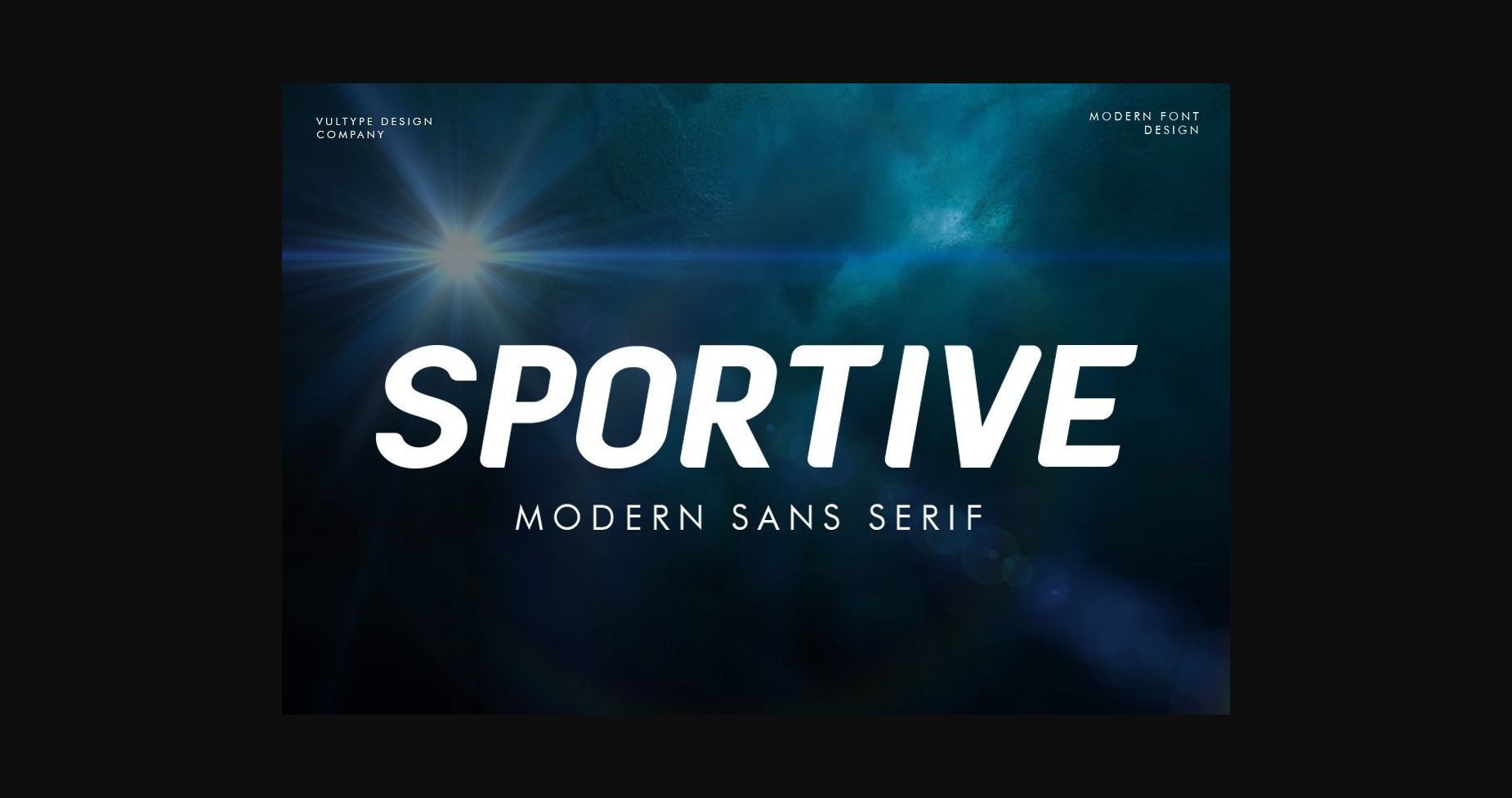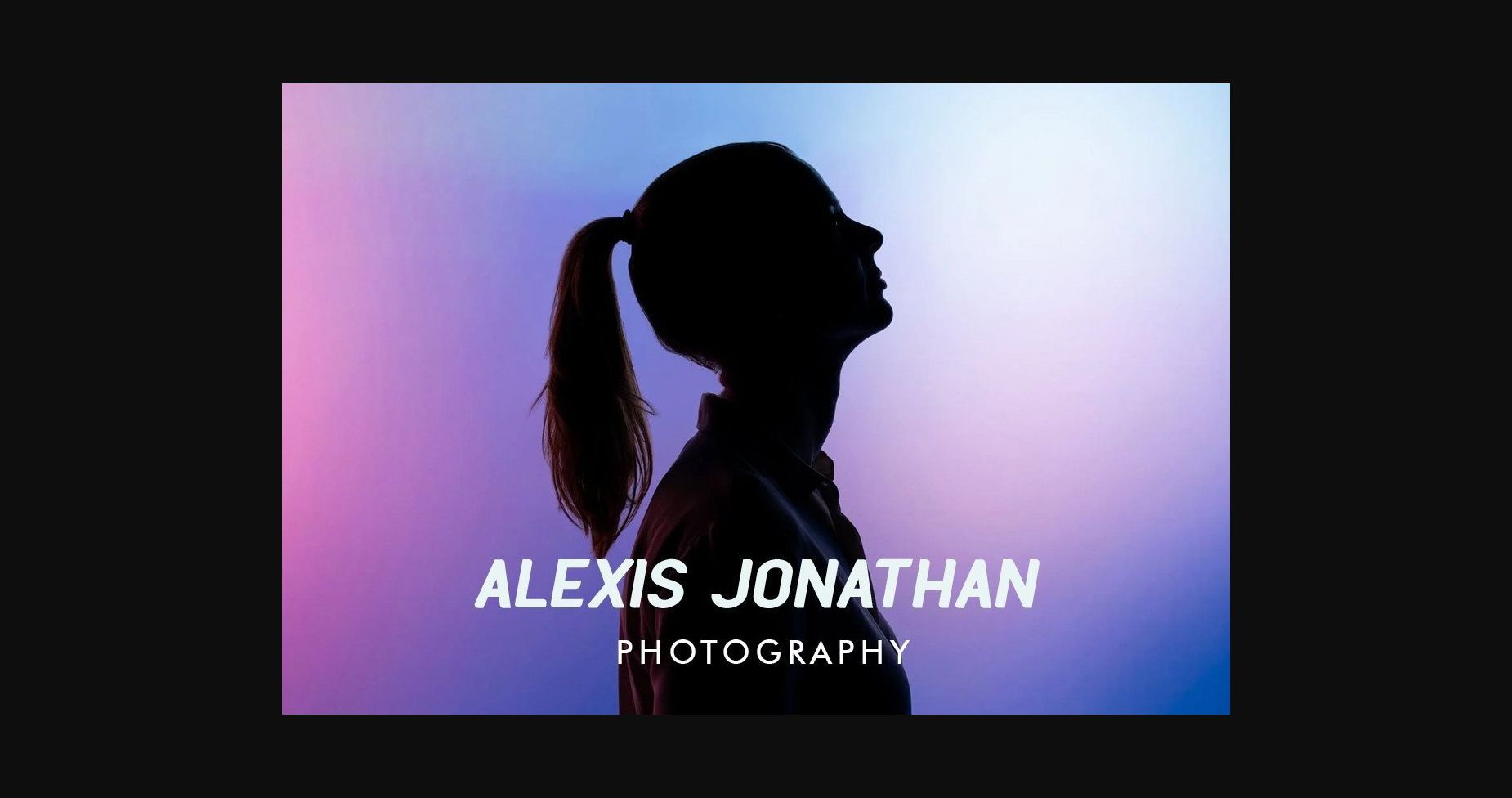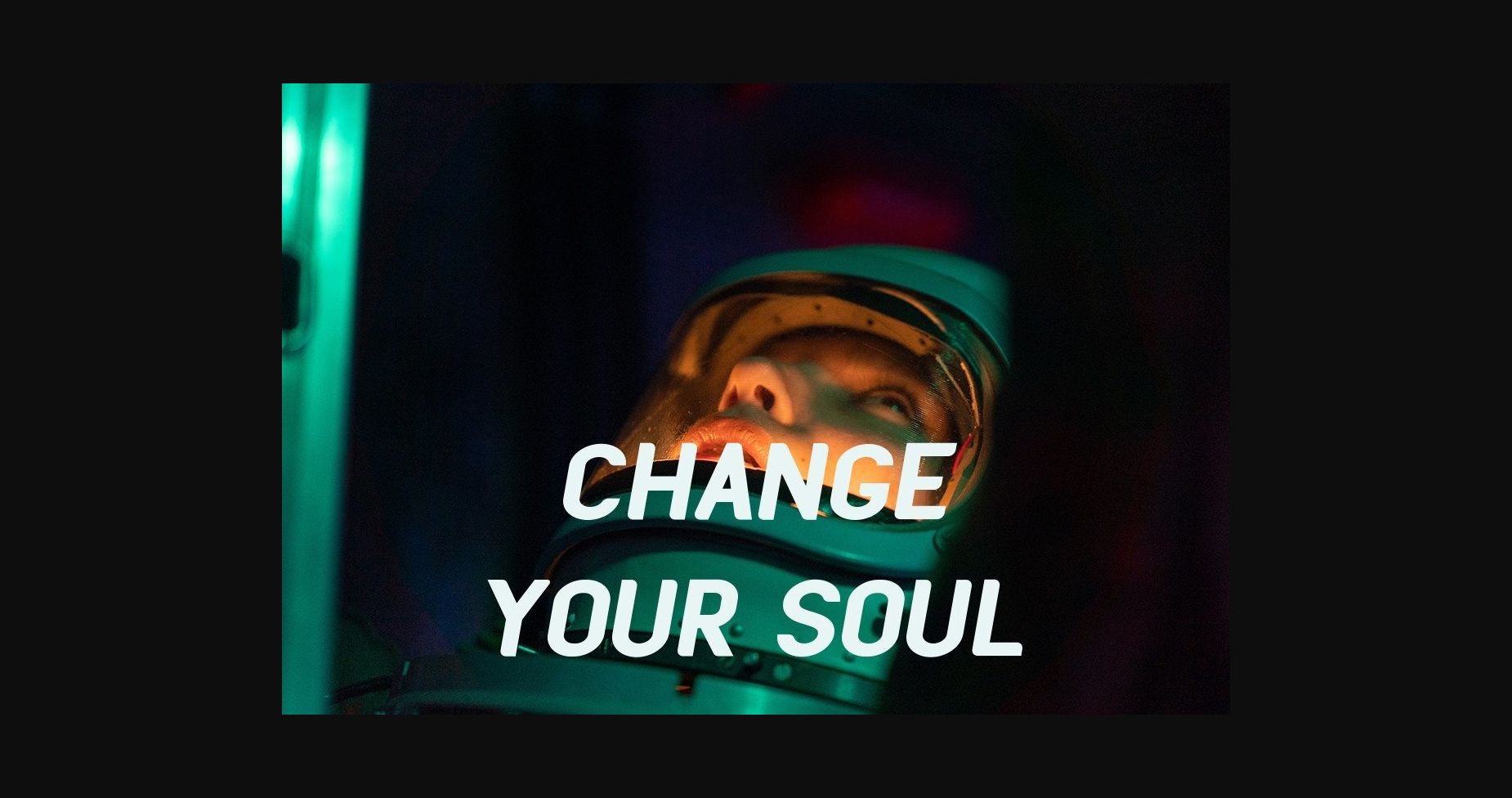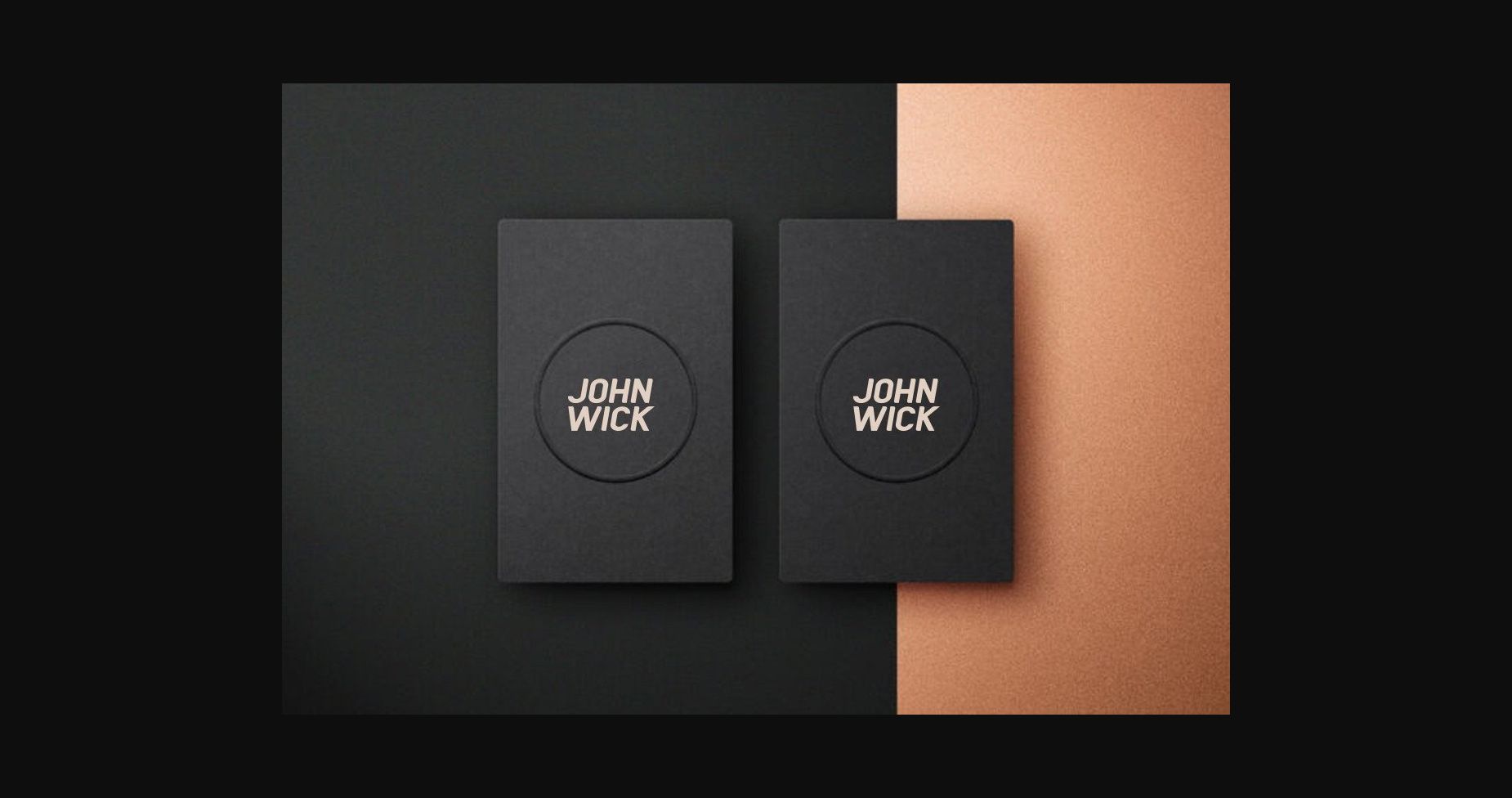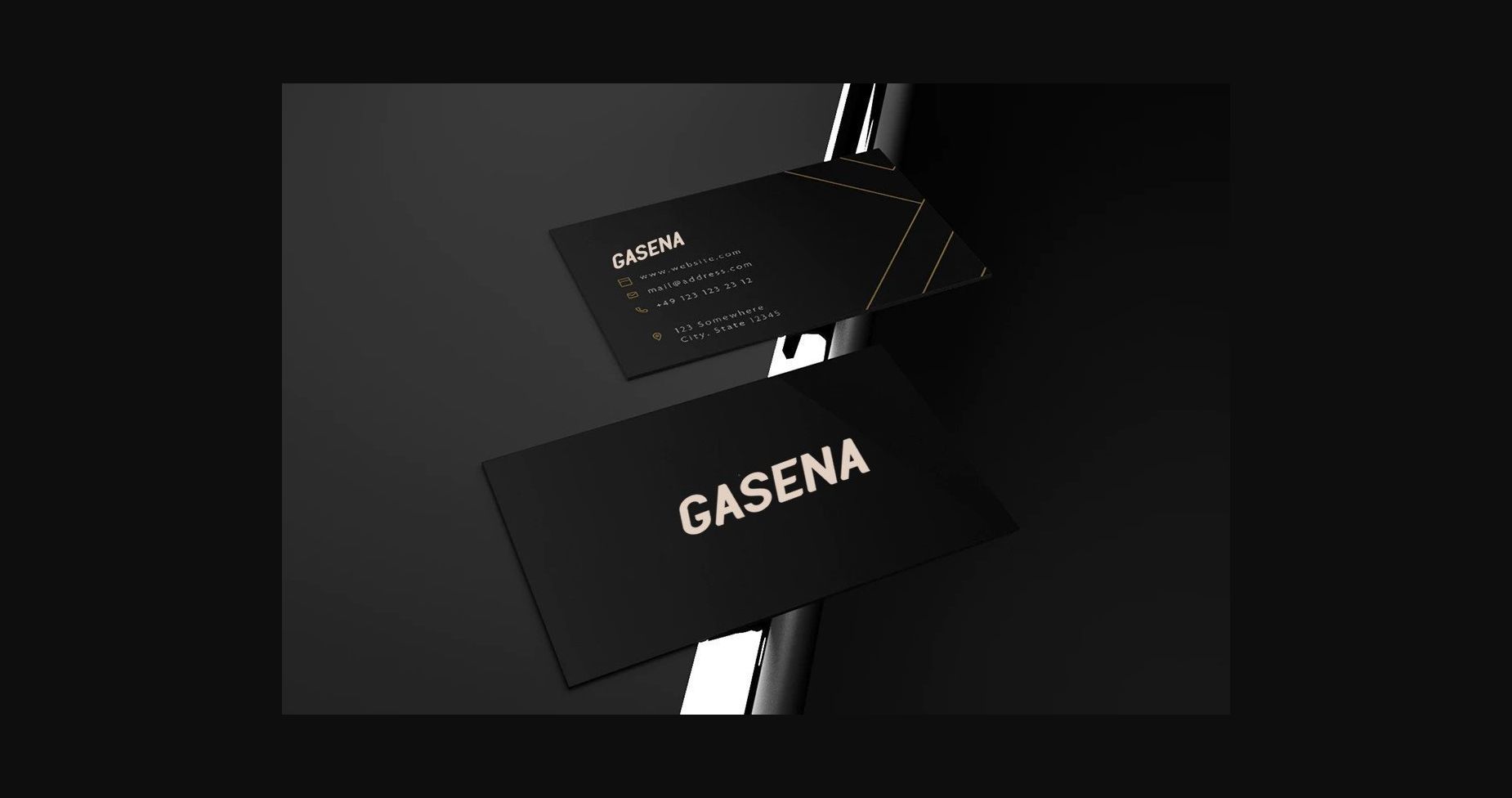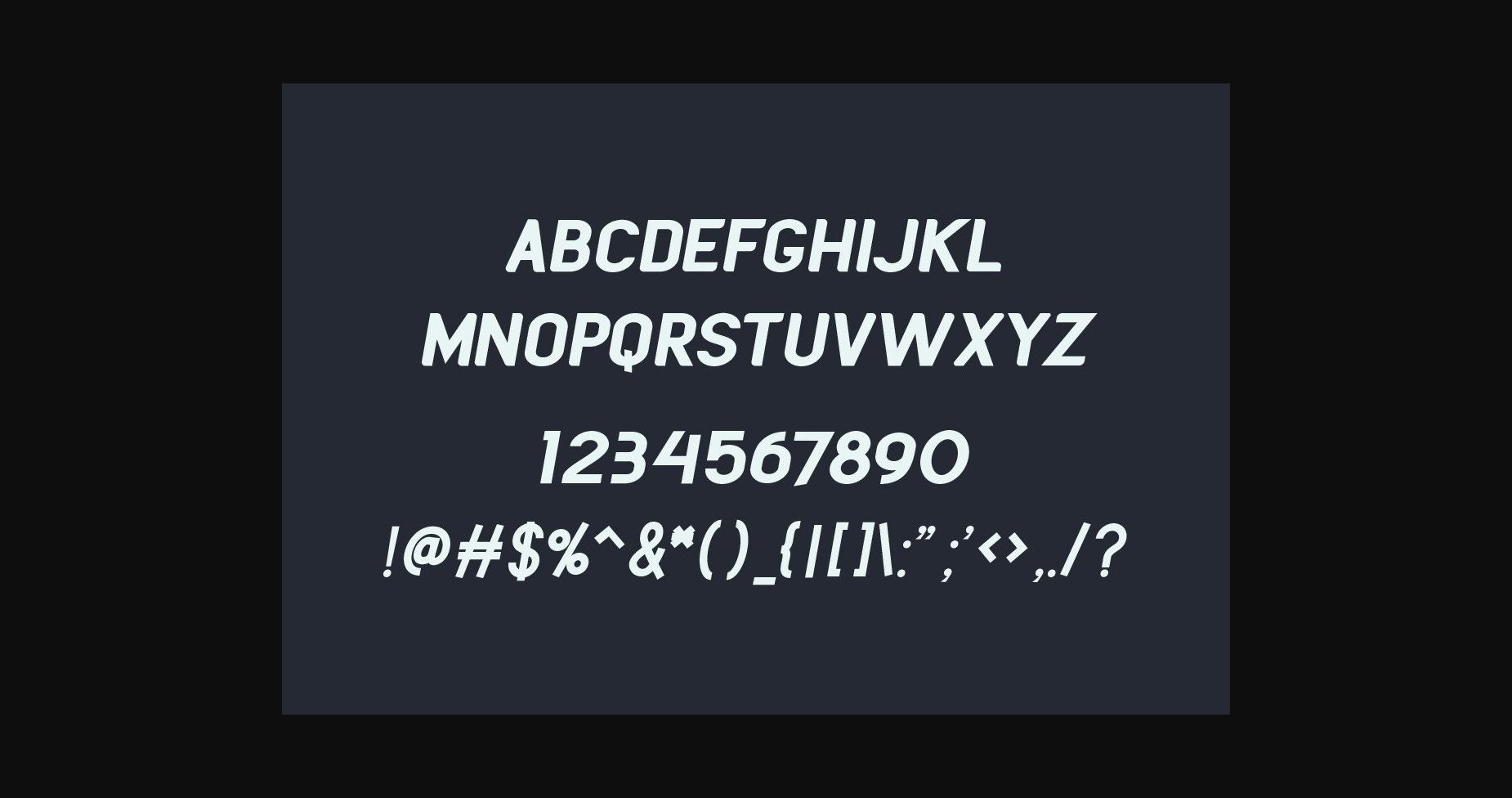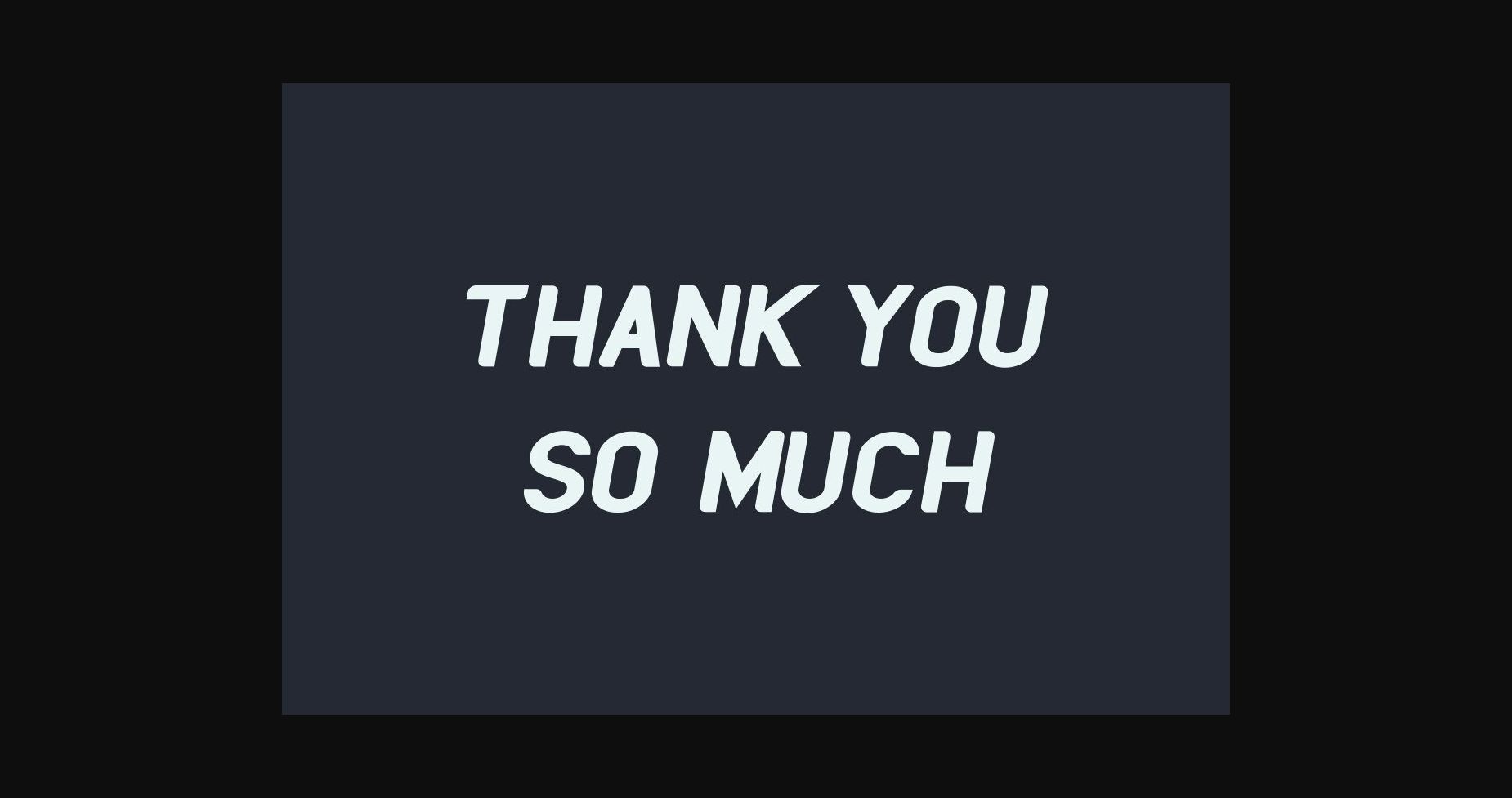
Sportive Font
About Sportive Font
Sportive is a sans-based font with unique lowercase that will make your design looks futuristic and modern. You can use this font for any purpose, especially to make logotypes.